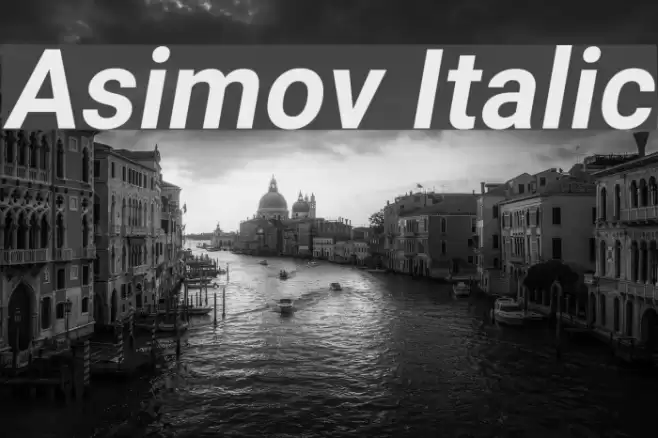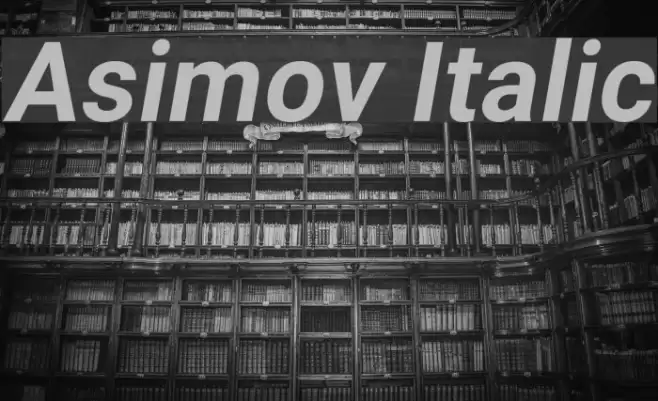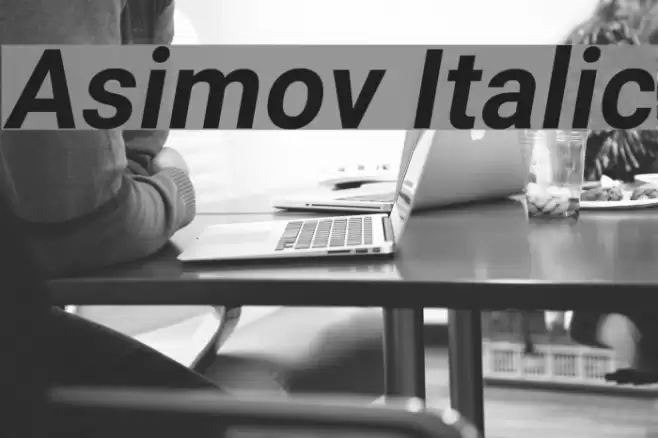
Asimov Italic Font
Asimov Italic Description
This font exhibits a sleek and modern italic style, characterized by its clean lines and slightly slanted characters. The uppercase and lowercase letters maintain a consistent flow, enhancing readability while adding a dynamic touch. The numerals are clear and well-proportioned, making them suitable for various applications. Special characters are distinct and harmonize well with the overall design. The font's structure is balanced, with moderate character spacing that ensures clarity without sacrificing style. Its contemporary aesthetic makes it versatile for both digital and print media.
A modern italic font with clean lines and dynamic slant from Uncategorized fonts.